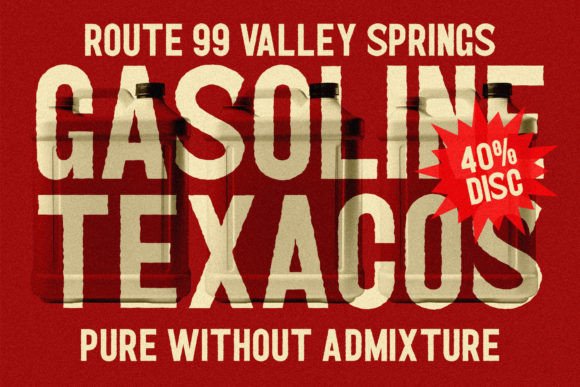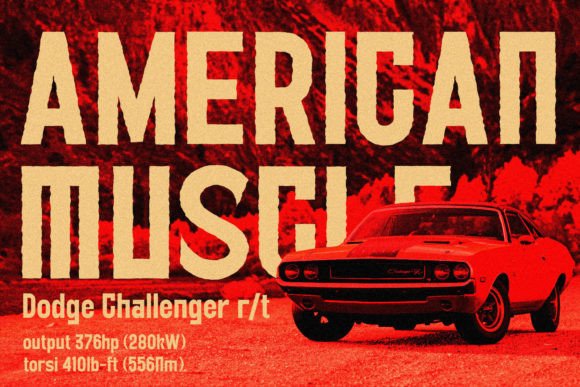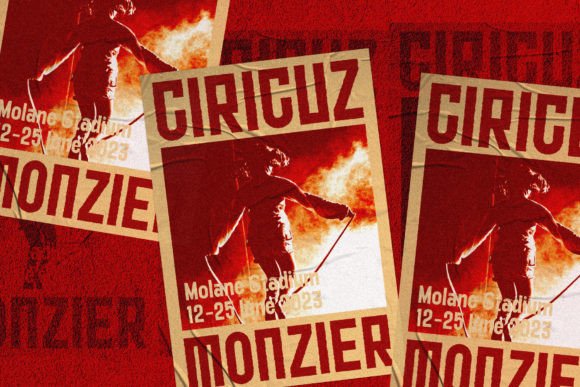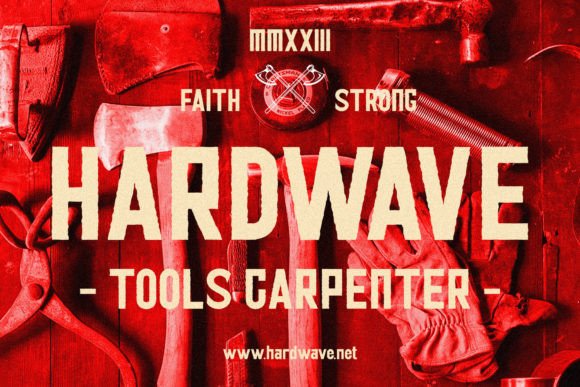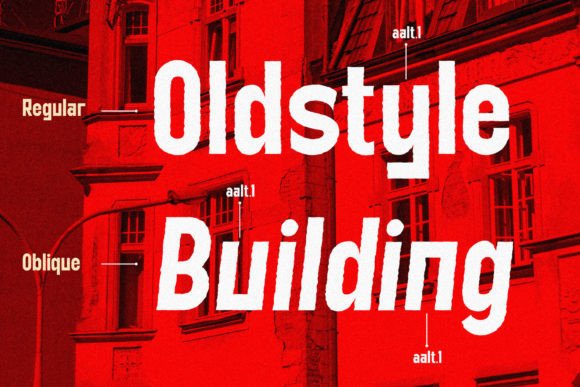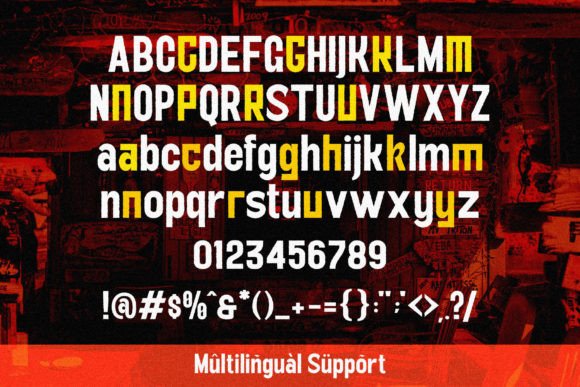
I still remember the frustration of working on a vintage-themed project, scouring the internet for the perfect font that would bring my design to life. My client wanted something that screamed industrial chic, but with a touch of elegance. I tried font after font, but nothing seemed to fit the bill. That was until I stumbled upon the Counter Courage Font .
As I explored its features, I was hooked. The vintage-style sans serif font with an ink effect was everything I had been searching for. In this article, I’ll share my experience with Counter Courage, its features, and how to make the most of it in your designs.
First Impressions: What I Love About Counter Courage
Here’s what immediately drew me to Counter Courage:
- ✨ Vintage aesthetic: The ink effect gives it a unique, distressed look that’s perfect for industrial and vintage-themed designs.
- ✅ Multilingual support: I can use it for projects that require text in multiple languages.
- 🔍 OpenType feature: This font is equipped with OpenType features, which allow for advanced typographic control.
The Not-So-Perfect: Small Quirks and Limitations
No font is perfect, and Counter Courage has a few quirks:
- 🤔 Limited character set: While it supports multilingual text, some characters may not be available.
- ⚠️ Ink effect can be overwhelming: Depending on the design, the ink effect might be too prominent, overpowering the text.
The Story Behind Counter Courage
Counter Courage was designed with the intention of capturing the essence of industrial and vintage design. Its creator drew inspiration from classic typography, combined with modern digital techniques to achieve the unique ink effect.
| Font Name | Counter Courage Font |
| Author | Viaction Type.Co |
| Is Counter Courage suitable for body text? | While Counter Courage is a beautiful font, its ink effect and vintage aesthetic might make it more suitable for headlines and titles rather than body text. |